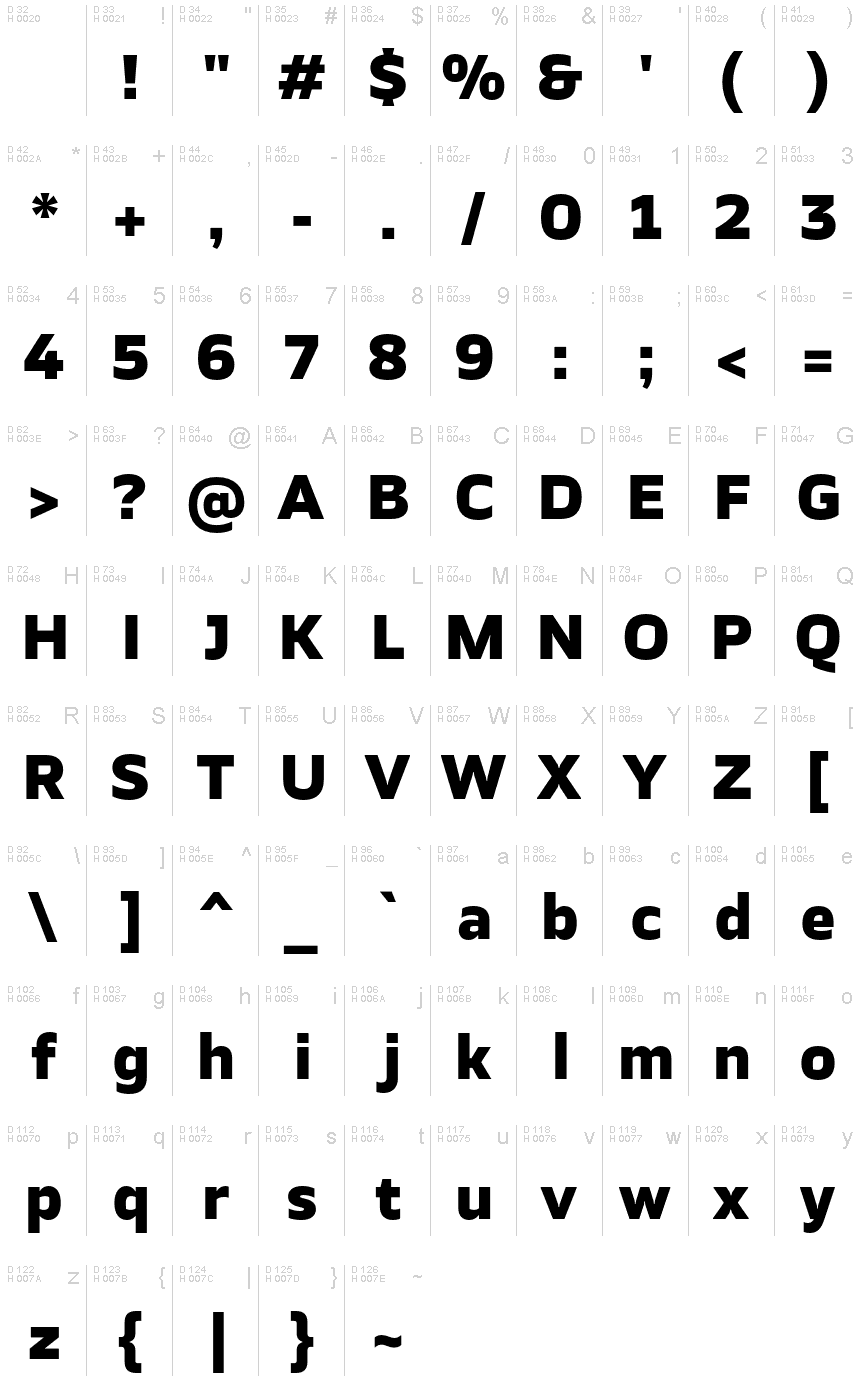
TT Severs Trial ExtraBold
TT Severs ExtraBold is a stunning sans serif font that stands out with its extra-bold weight and semi-expanded width. It's perfect for projects that require a strong and impactful statement, such as headlines, titles, logos, posters, and branding materials. This font features clean lines and smooth curves that make it versatile enough for both modern and classic designs. The TypeType Foundry designer has expertly crafted TT Severs ExtraBold to ensure it maintains legibility at any size. Whether you're designing for print or digital media, this font will definitely make your text pop!